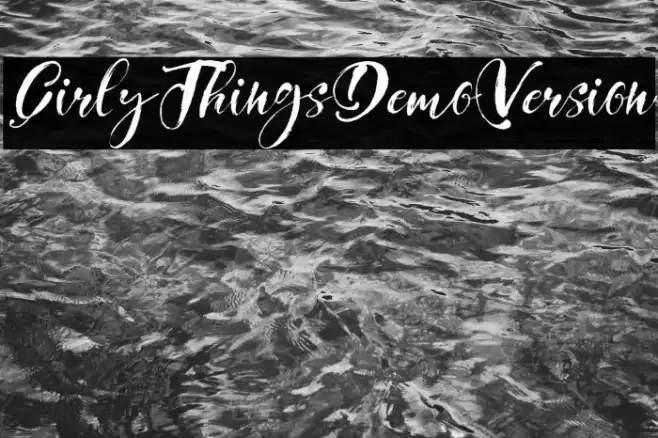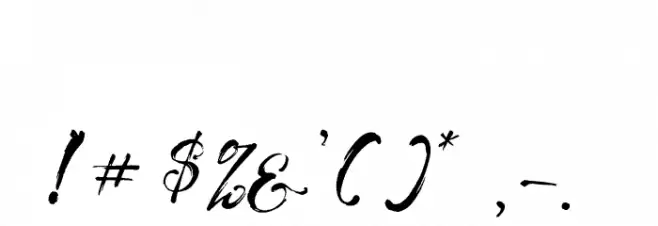
GirlyThingsDemoVersion Font
GirlyThingsDemoVersion Description
This font exudes a playful and elegant charm, characterized by its flowing script style. The letters are crafted with a calligraphic flair, featuring smooth curves and delicate swashes that add a touch of sophistication. The uppercase letters are bold and expressive, while the lowercase letters maintain a graceful continuity. The font's design is reminiscent of handwritten notes, making it perfect for projects that require a personal touch. Its artistic strokes and varying line thicknesses create a dynamic visual appeal, ensuring that each character stands out beautifully. The special characters are thoughtfully integrated, maintaining the overall aesthetic of the font.
A playful and elegant script font with calligraphic flair and smooth curves from Uncategorized fonts.